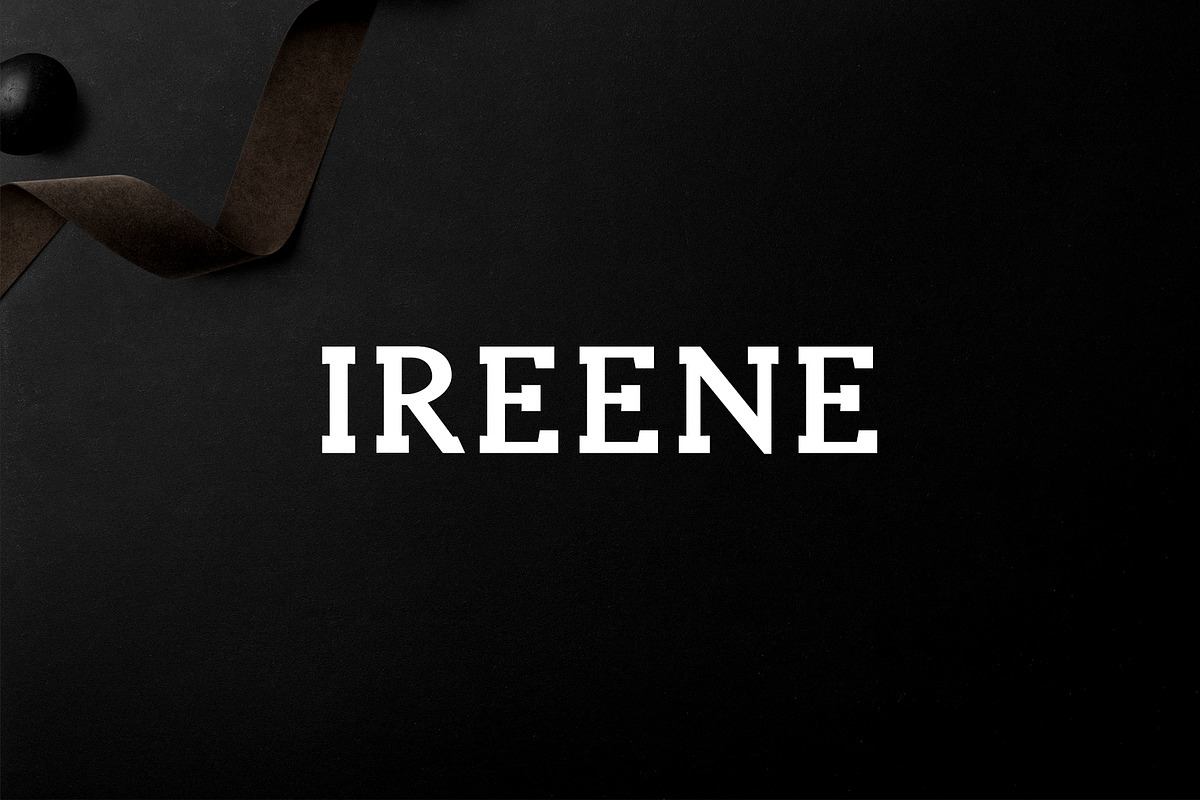
Ireene Serif 3 Font Family Pack Free Download is a sophisticated and versatile serif font family that includes three distinct weights, allowing you to create a wide range of design compositions. Perfect for editorial design, branding, logos, packaging, and websites, Ireene Serif brings a timeless elegance with its balanced proportions and elegant serifs.
Its clean and refined design ensures readability across various text sizes, making it ideal for both large headlines and smaller body text. Whether you're working on a luxury brand or a professional corporate design, Ireene Serif provides a stylish and professional typographic solution.